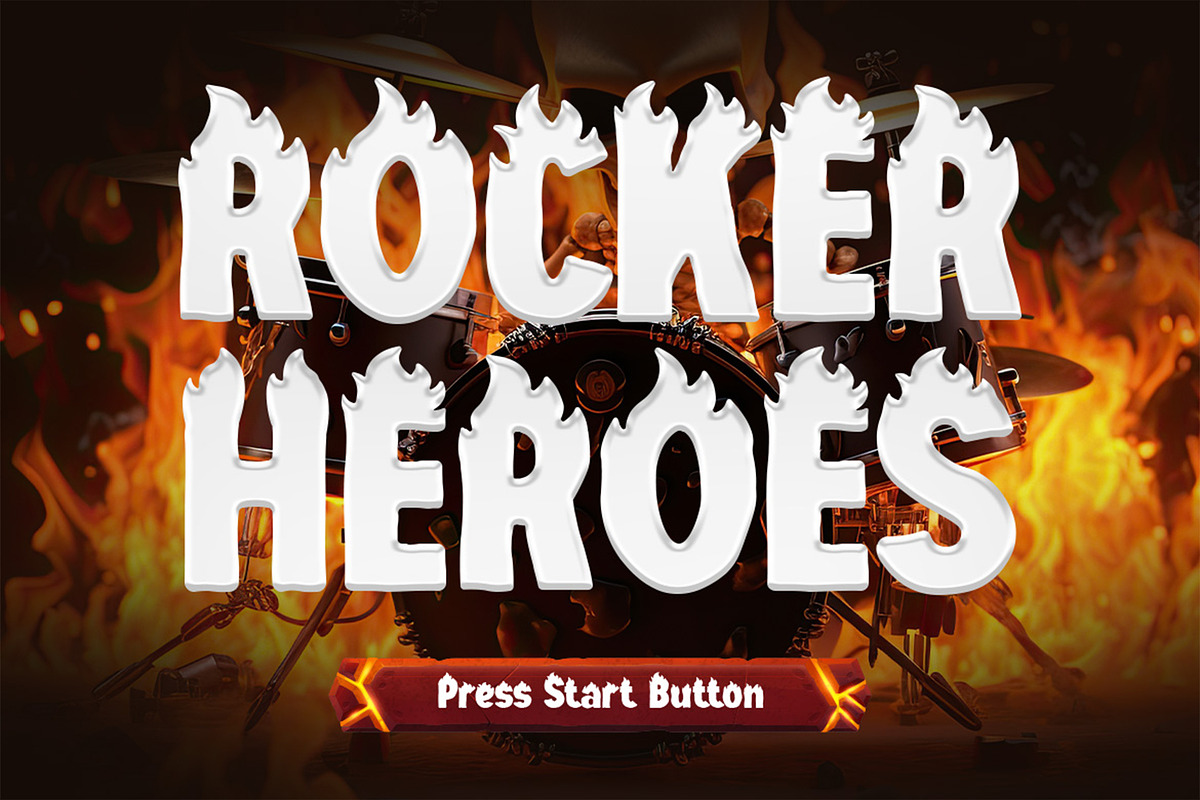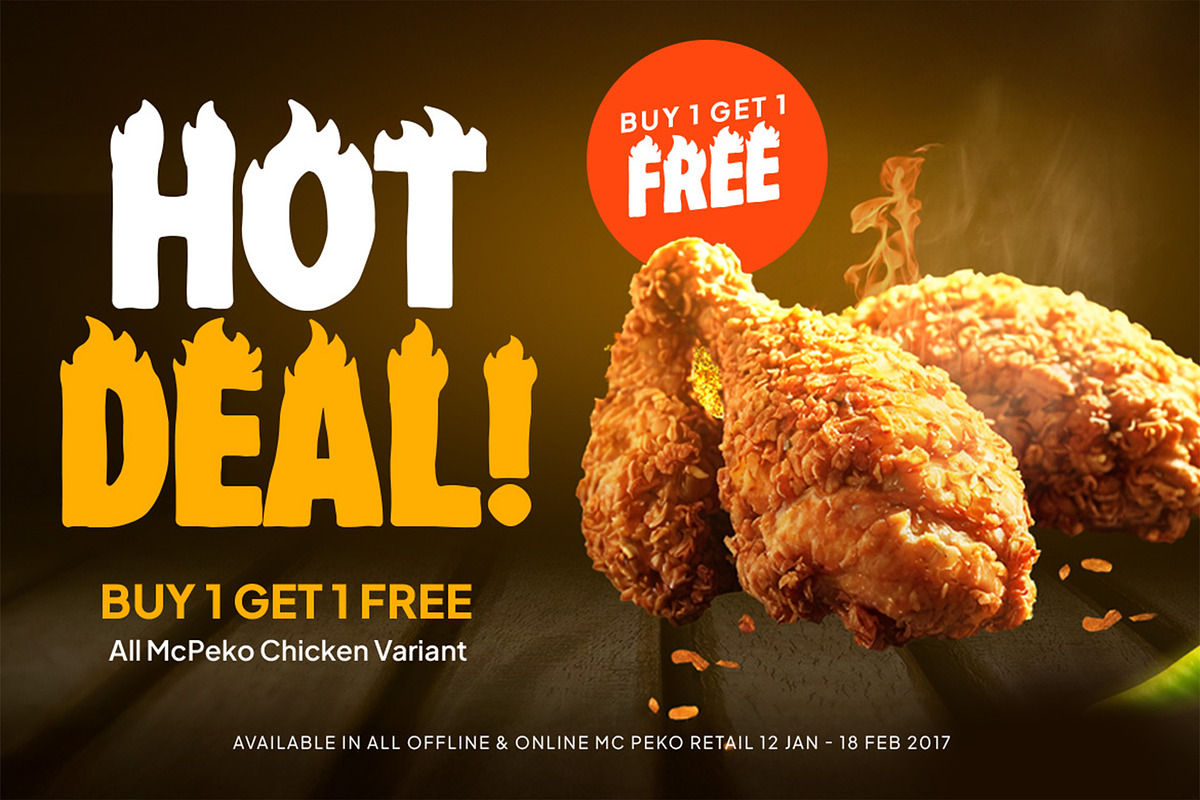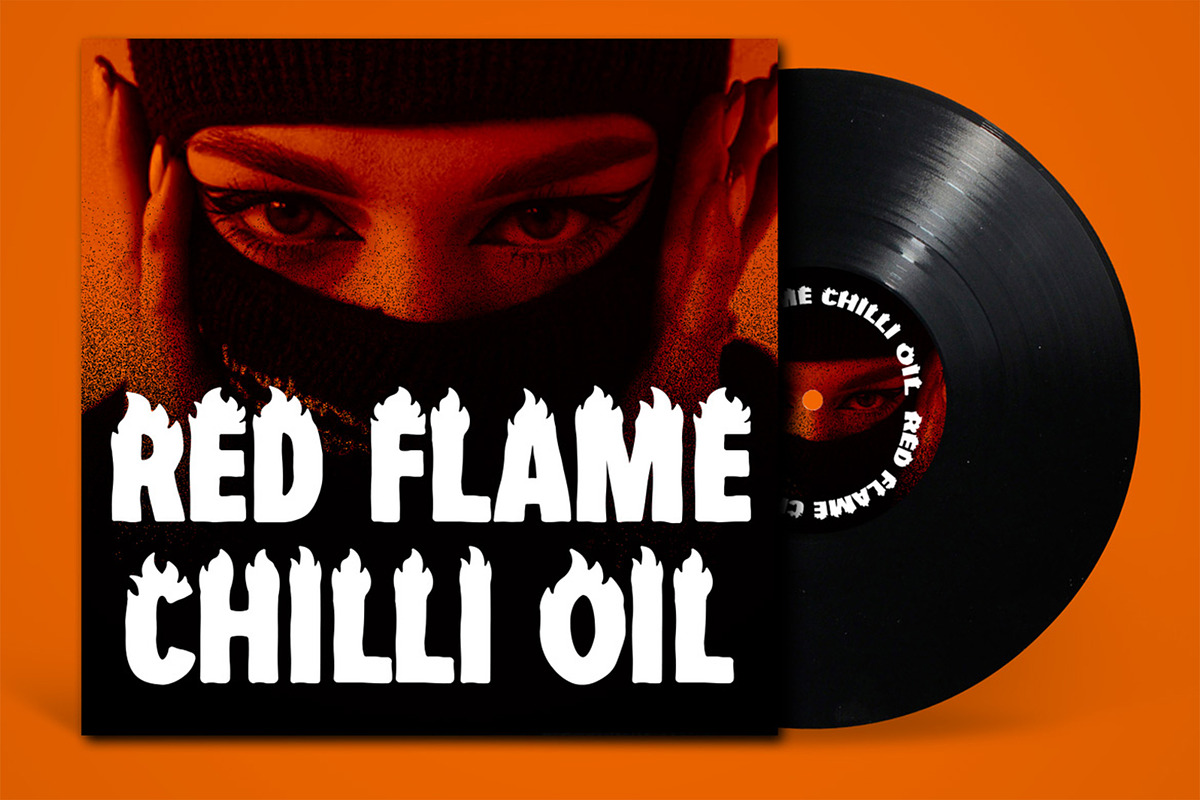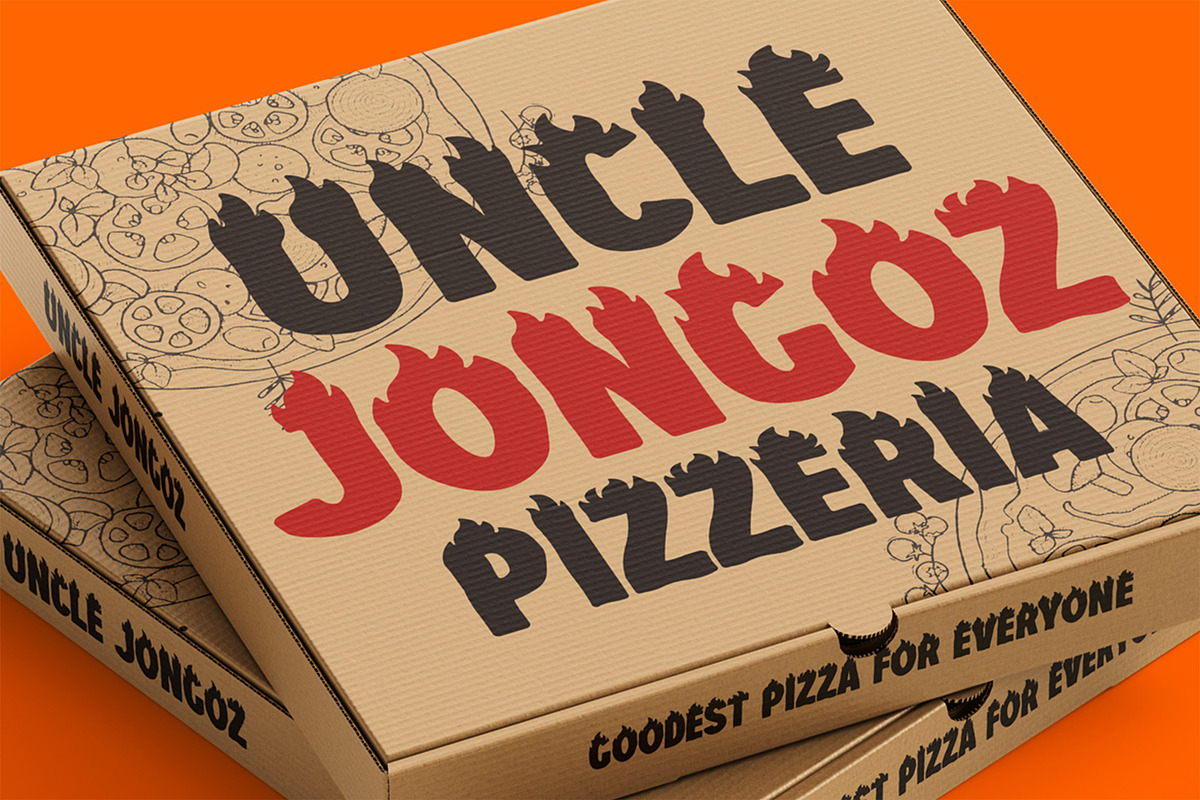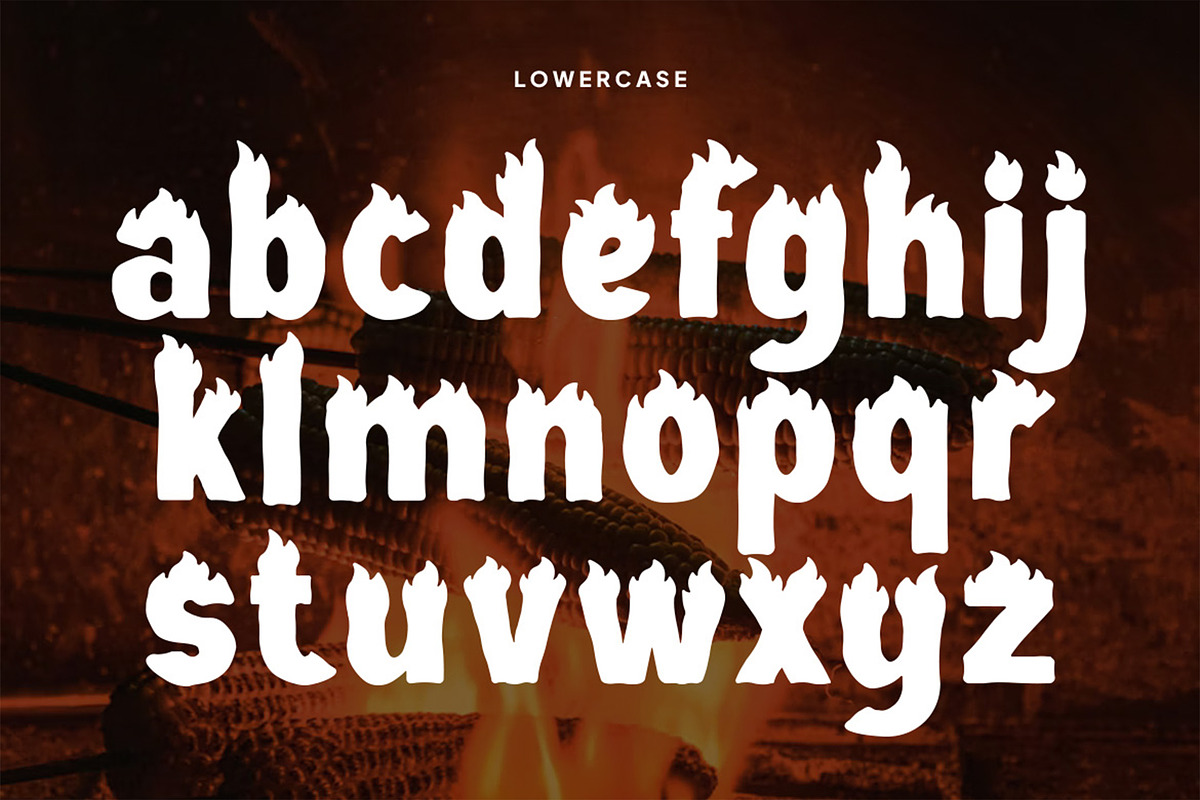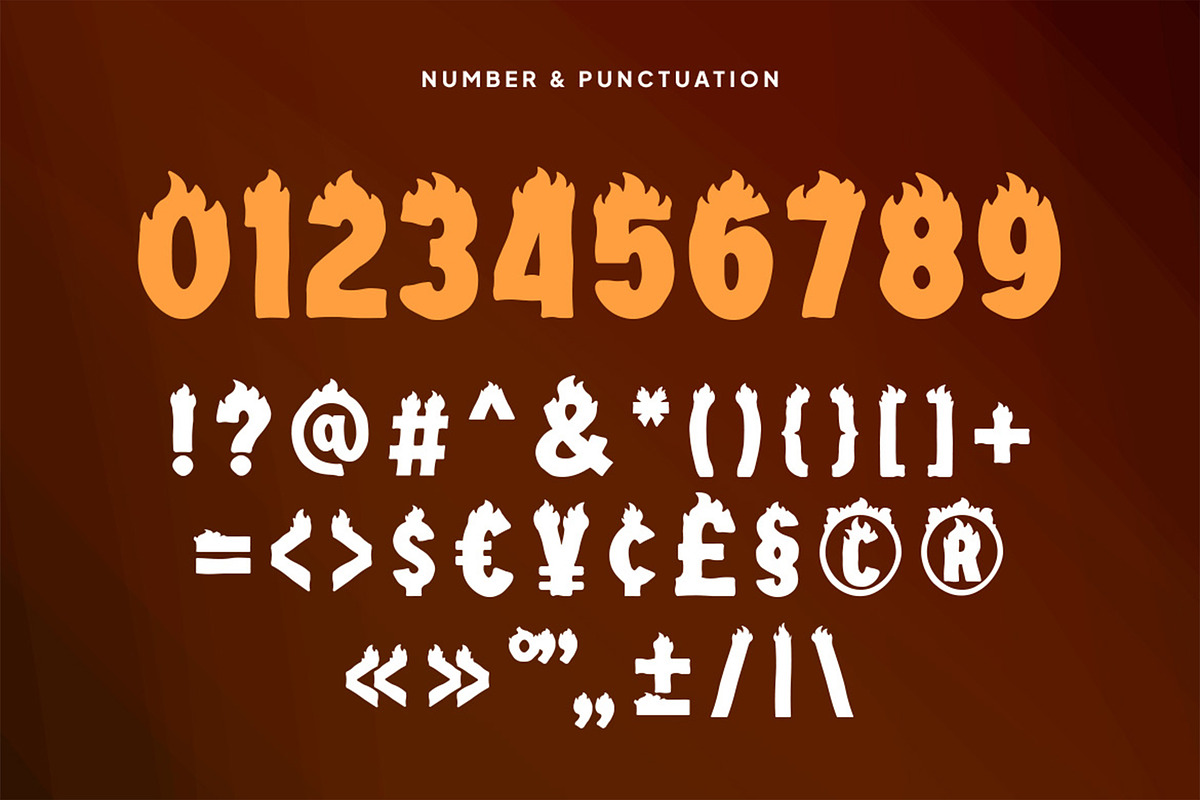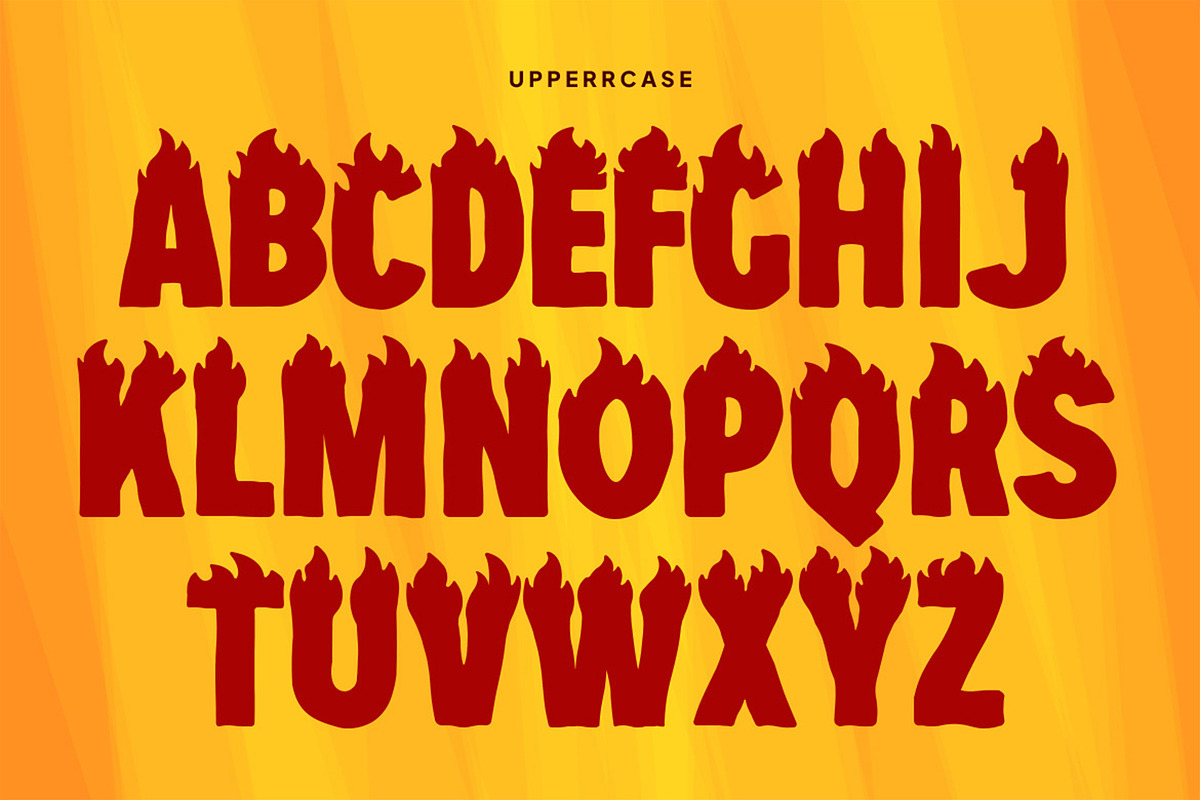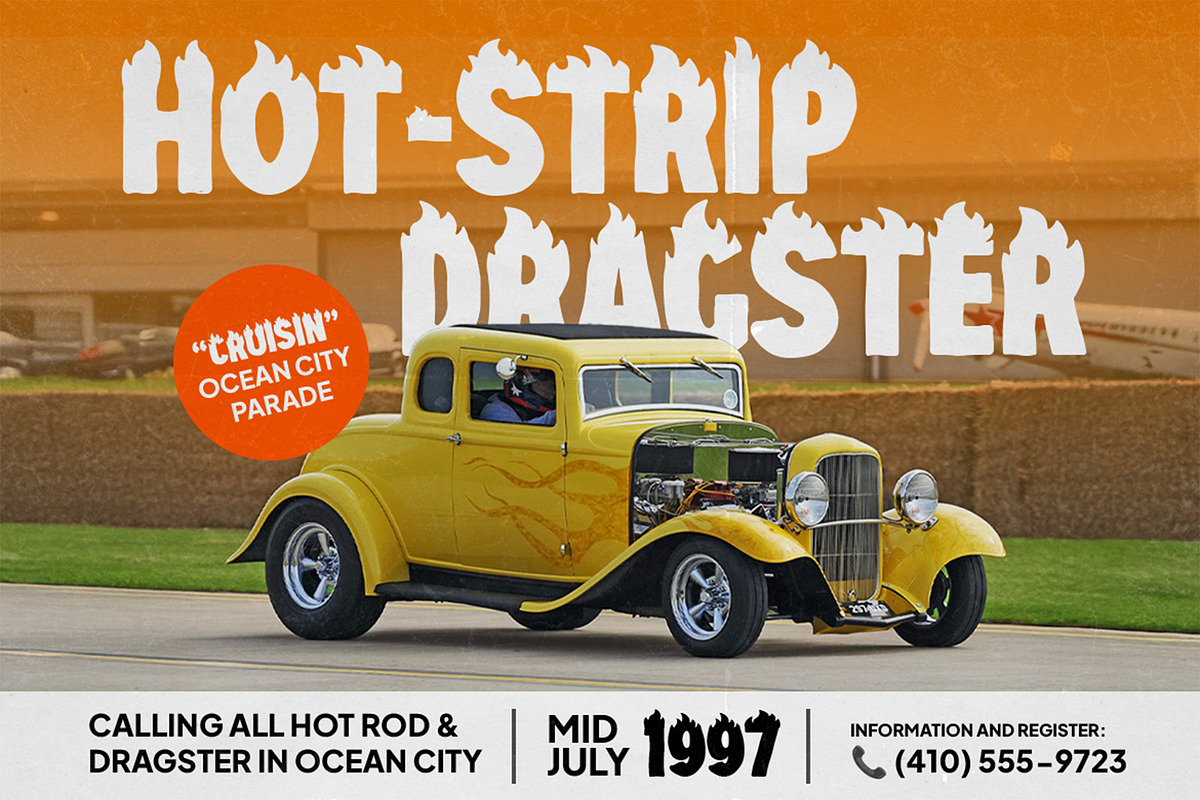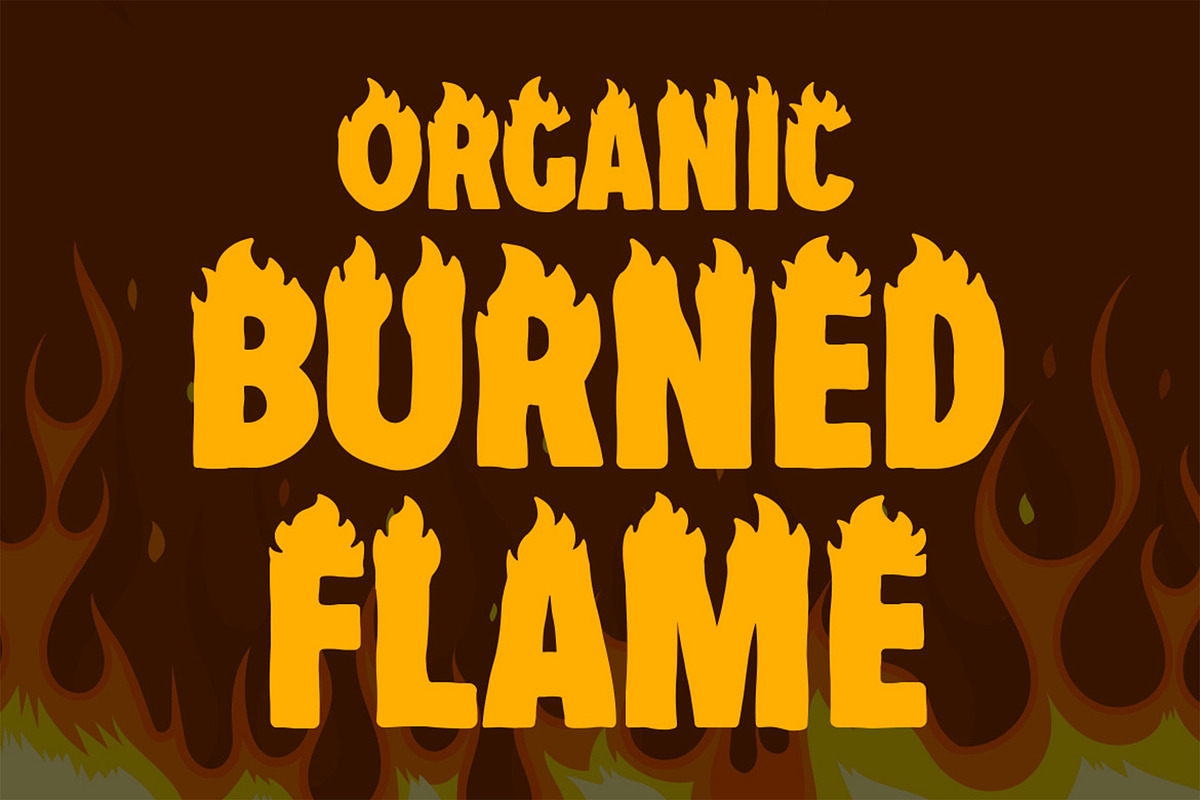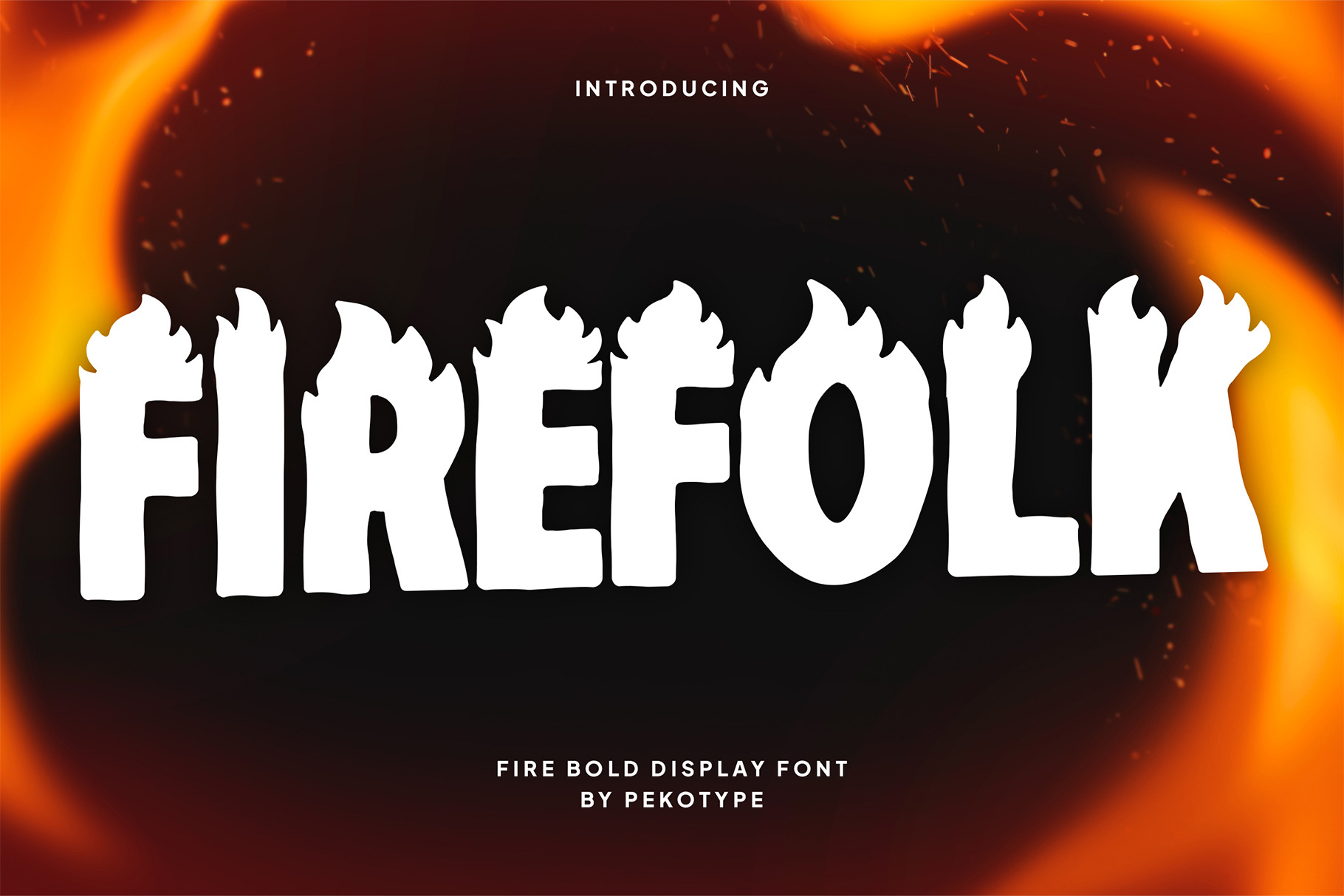
Firefolk - Bold Flame Display Font
FIREFOLK – Bold Flame Display Font
Ignite your creativity with Firefolk, a bold and fiery display font designed to command attention. With its blazing letterforms and daring style, this font brings energy, passion, and intensity to every design.
Perfect for branding, logo design, restaurant menus, food & beverage packaging, event promotions, posters, social media graphics, and marketing campaigns, Firefolk delivers a fearless vibe that makes your message impossible to ignore.